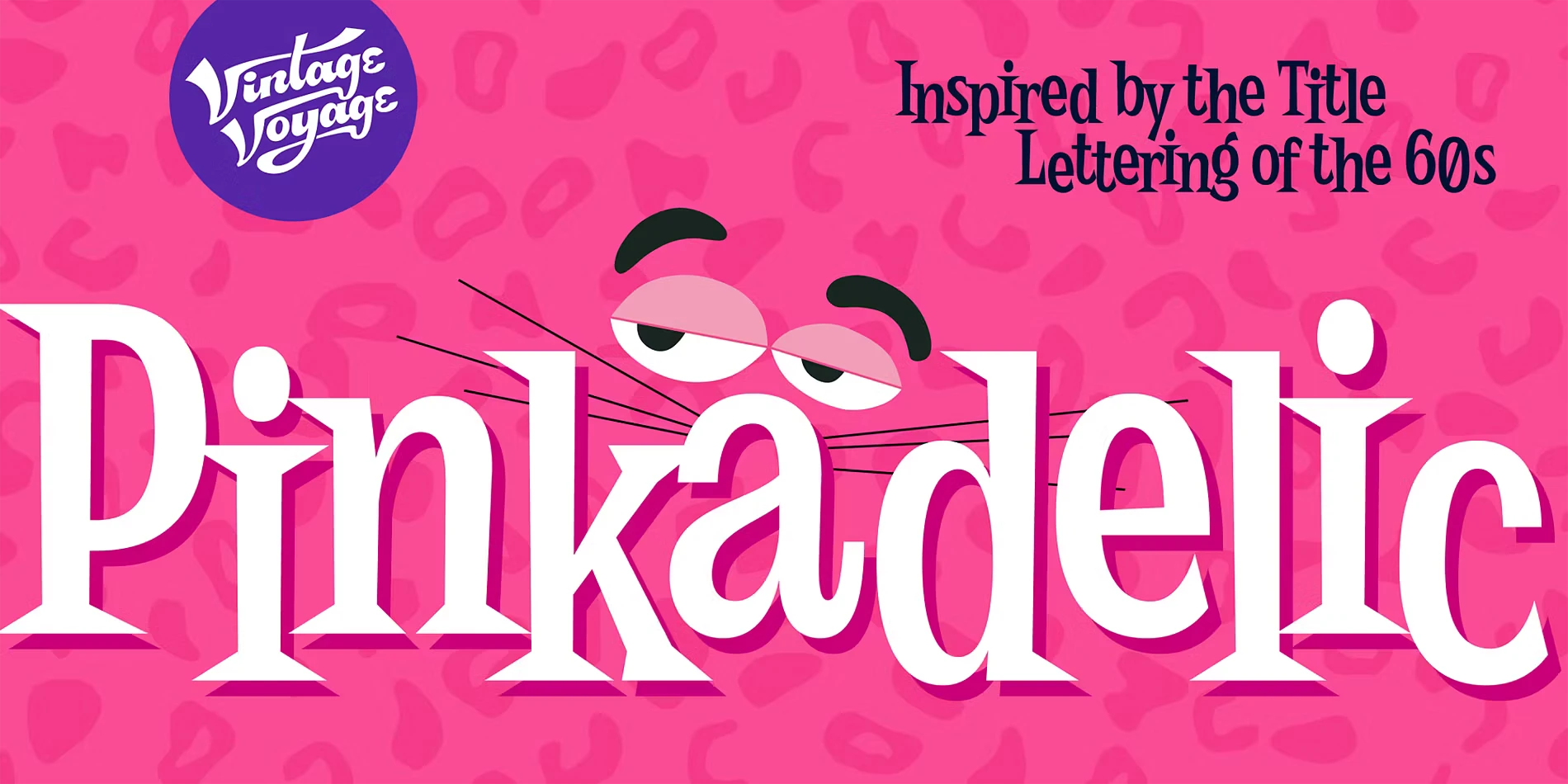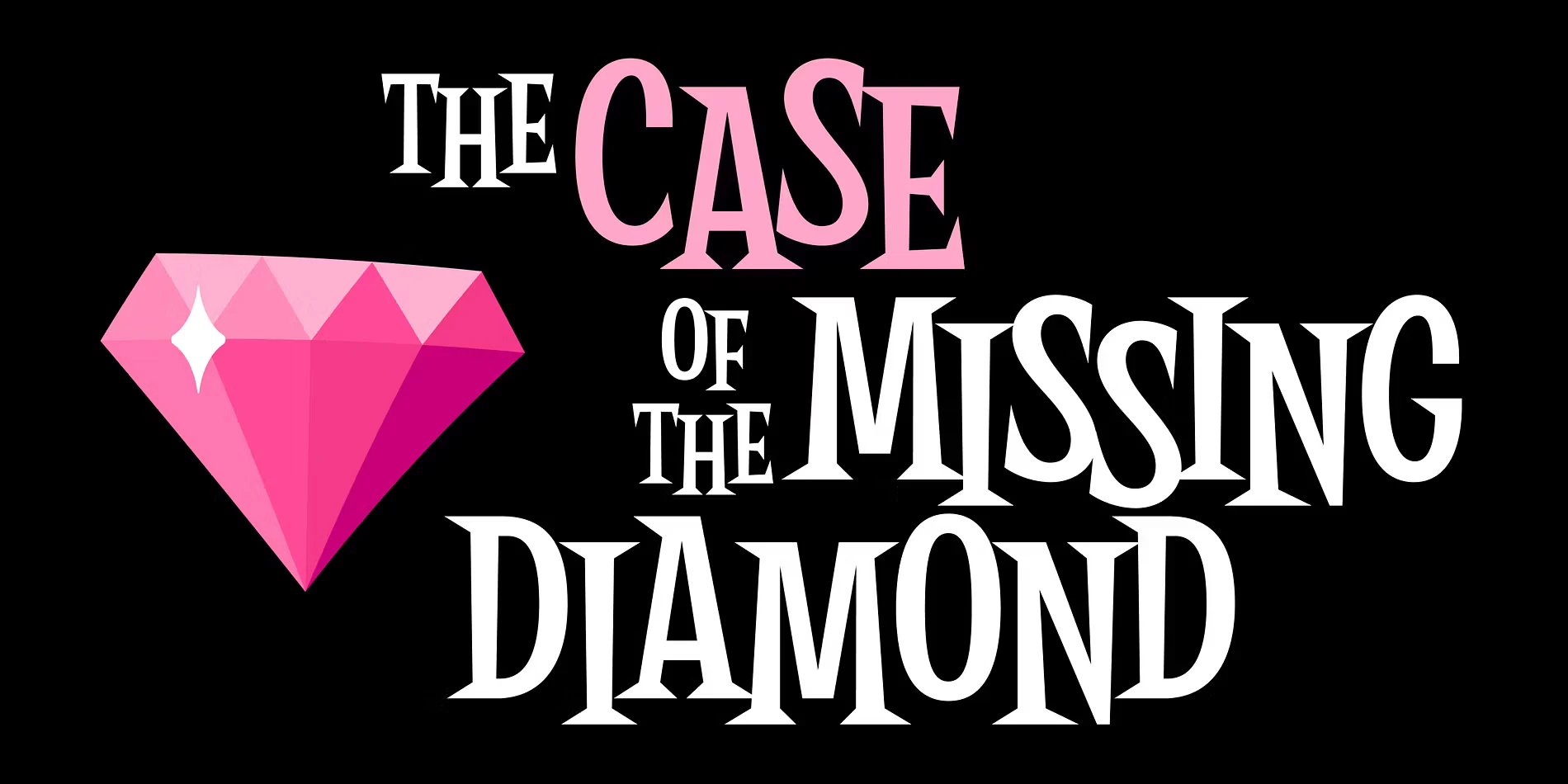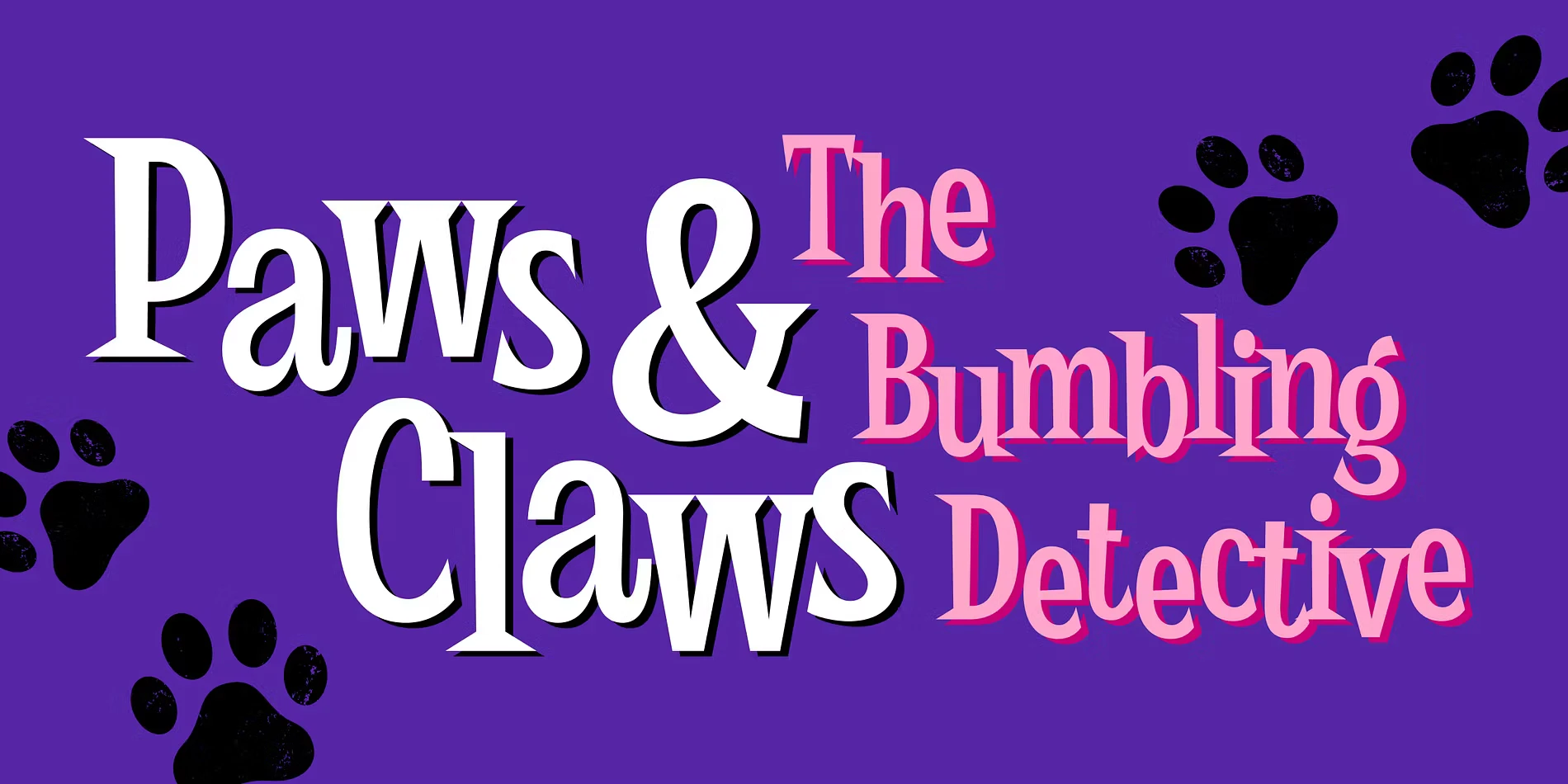
Pinkadelic Font Family
Pinkadelic is a condensed bold serif inspired by the Pink Panther title lettering of the 1960s. As fabulous as it sounds, this typeface boasts a large x-height, lively wedge serifs, and an optional bouncing baseline for stylishly unconventional and eye-grabbing typographic moments such as book covers for kids, high-energy album art, food and beverage packaging, and party merchandising! Pinkadelic is available with 5 weights — Light, Regular, Medium, Semi Bold, and Bold — or as a variable font.
• Vietnamese
• Common Ligatures
• Fractions
• Ordinal Numerals
• Small Capitals
• Small Capitals for Capitals
• Stylistic Alternates
• Stylistic Sets
• Subscript
• Superscript